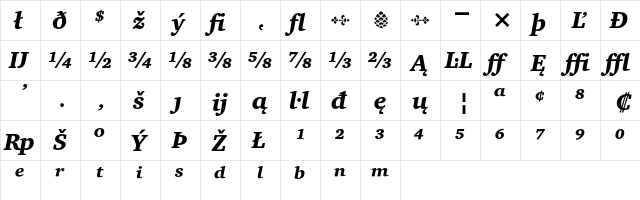
Charter Black Italic Extension Font Preview
Charter Black Italic Extension
Charter Black Italic Extension Font Details
| Style | Black Italic Extension |
Design Context for Charter Typeface
Charter offers clean, dependable letterforms without strong stylistic allegiance, making it a practical choice for designers who need flexibility. The slanted form adds forward momentum and visual energy.
Pro Tip: Try Charter for annotation and caption copy alongside an upright companion — the contrast in angle creates a dynamic but ordered typographic system.